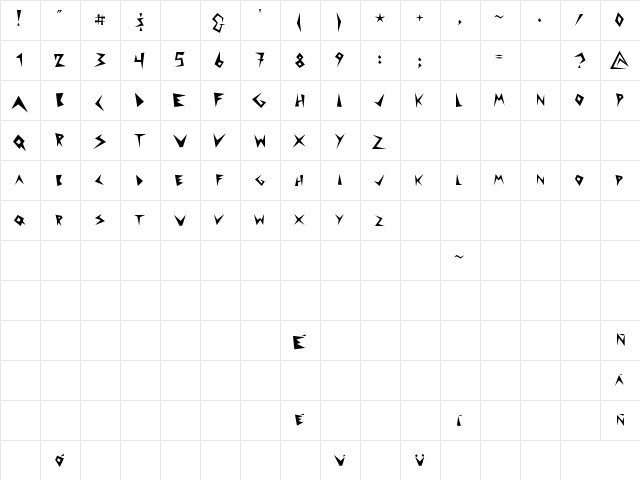
punt?a display Regular
Design Context for punt?a display Typeface
punt?a display is built around its visual character rather than neutral utility — its distinctive forms are designed to make an impression at display sizes.
Font Pairing: Pair with a clean neutral sans-serif for body copy to let punt?a display's character lead without overwhelming the composition.
Pro Tip: Use punt?a display exclusively at display sizes — it was designed to be seen, not read at length. Let a neutral companion handle body copy.